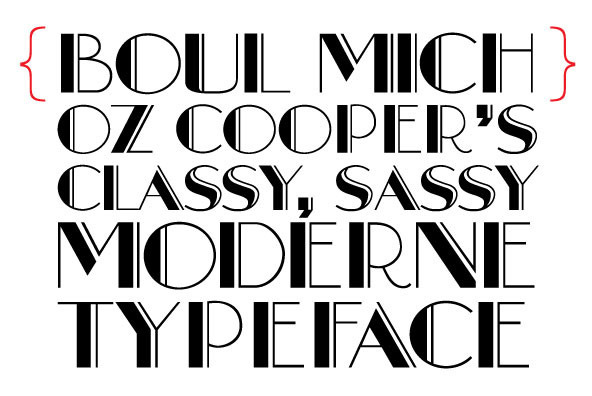
Boul Mich Font
Boul Mich Font is perfect for Parisian-inspired branding projects, French café signage, sophisticated bistro communications, European fashion campaigns, cultural quarter marketing, intellectual bookstore identities, artistic neighborhood promotions, and elegant lifestyle advertising. This cultured typeface works beautifully in both digital applications and print media where French sophistication and bohemian charm are essential design elements.
What makes Boul Mich Font so exciting is its authentic capture of Parisian Boulevard Saint-Michel atmosphere through refined letterforms that embody the intellectual energy and cultural sophistication of the Latin Quarter's legendary streets. The font features elegant characters with Parisian proportions, bohemian curves, and intellectual details that evoke the timeless charm of Left Bank cafés and the artistic spirit of French cultural life. Its sophisticated personality and Parisian heritage make it ideal for brands seeking to communicate European elegance, intellectual authenticity, and the refined lifestyle associated with French cultural traditions.
The Boul Mich Font family includes multiple weight variations with different Parisian intensities, along with cultured alternates and French ornamental elements. Each style maintains the typeface's sophisticated character while offering comprehensive character sets including European numerals, French-inspired punctuation marks, and special symbols designed to enhance cultural communications and Parisian branding efforts across various sophisticated contexts.
This remarkable typeface represents the perfect marriage of French cultural tradition and contemporary design functionality for hospitality and lifestyle industries. Whether you're developing French restaurant identities, creating European fashion materials, or designing cultural event promotions, Boul Mich Font Free Download provides the Parisian sophistication and versatility needed to captivate culturally refined audiences. The font's French heritage makes it particularly effective for bistros, European fashion brands, bookstores, and businesses celebrating the intellectual charm and cultural richness of Parisian lifestyle.
The carefully crafted Parisian details and optimized cultural performance in Boul Mich Font ensure both authentic elegance and clear communication across all sophisticated applications. Its cultured presence makes it perfect for European branding, sophisticated marketing materials, and cultural communications where its full Parisian character can create lasting connections with audiences who appreciate French elegance, intellectual culture, and the timeless sophistication of Boulevard Saint-Michel's legendary atmosphere.